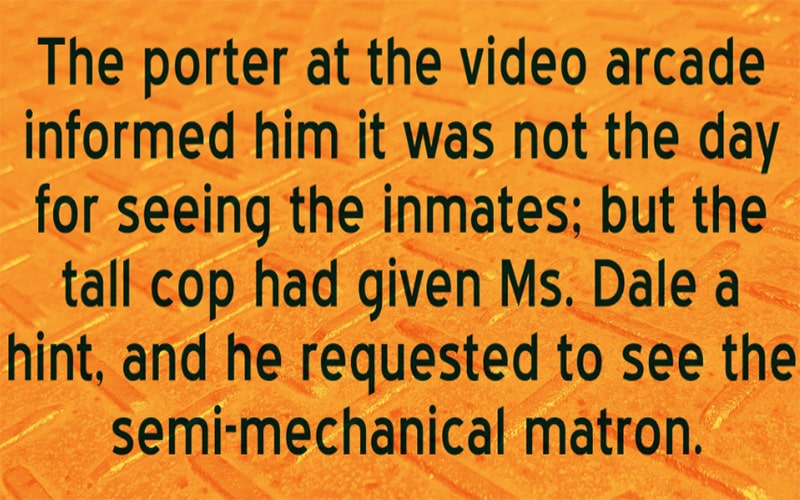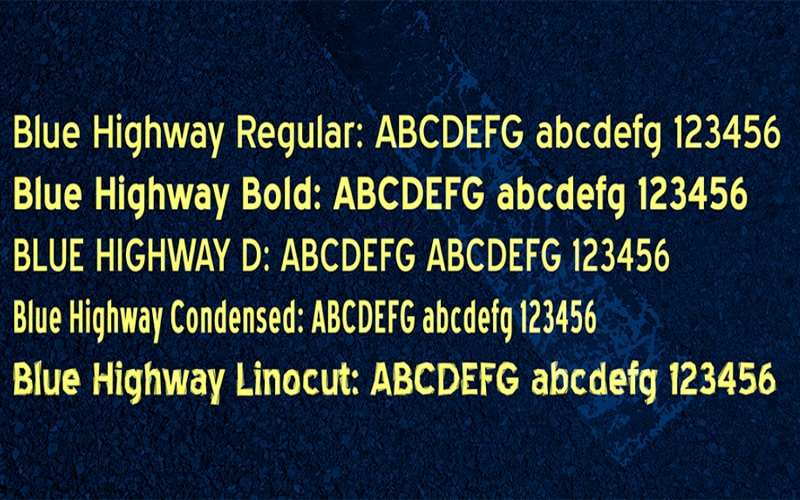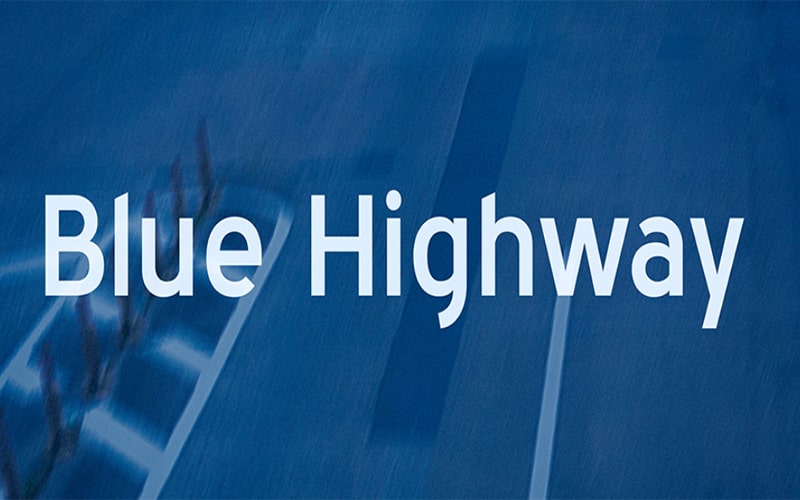
Blue Highway Font Family is a Basic, Sans Serif typeface. This astonishing typeface is based on Canadian or U.S. highway sign lettering.
This font was designed by Raymond Larabie and published by Typodermic Fonts for the first time. The designer Raymond Larabie is from Canada currently living in Japan.
It was first seen before 2005 and later updated on June 25, 2014. The subfamily of this Blue Highway Bold Font is regular. You can use this versatile font for your different design projects.
This beautiful and stunning font contains 5 amazing styles such as “Blue Highway”, “Blue Highway Bold”, “ Blue Highway D Type”, “Blue Highway Condensed”, and “Blue Highway Linocut”.
| Style: | Basic, Sans-serif, Typeface |
| Font Designer: | Raymond Larabie |
This amazing free version font is available in all lowercase and uppercase letters. Also includes numbers and some special characters as well.